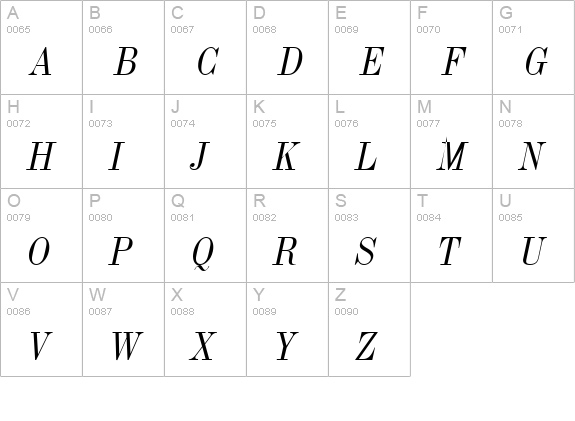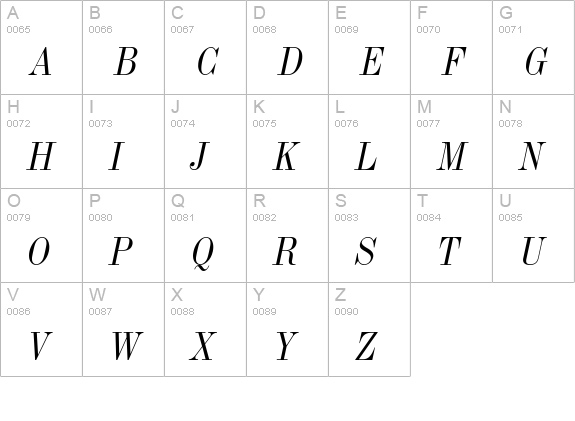
Indy 17 Italic Font Details
Indy 17 Italic is a distinctive, italic variant in the Indy typeface family \xE2\x80\x94 well suited to design and typography projects.
Indy 17 Italic font is a stunning typeface that exudes elegance and sophistication. Its sleek and stylish design captures attention and adds a touch of finesse to any project. The distinct slant of the italicized letters adds a sense of movement and dynamism, making it perfect for conveying a sense of energy and excitement. This versatile font is ideal for a wide range of design applications, from logos and branding to editorial work and advertisements. Its unique and eye-catching appearance will make your designs stand out and leave a lasting impression on your audience. One of the best features of Indy 17 Italic font is that it is free and readily available to download at FontsMarket.com. This means that you can enhance your creative projects without any additional cost, making it an excellent choice for budget-conscious designers and enthusiasts. With its effortlessly stylish aesthetic and free availability, Indy 17 Italic font is a must-have addition to your font collection. Download it today from FontsMarket.com and elevate your designs to new heights of elegance and professionalism.